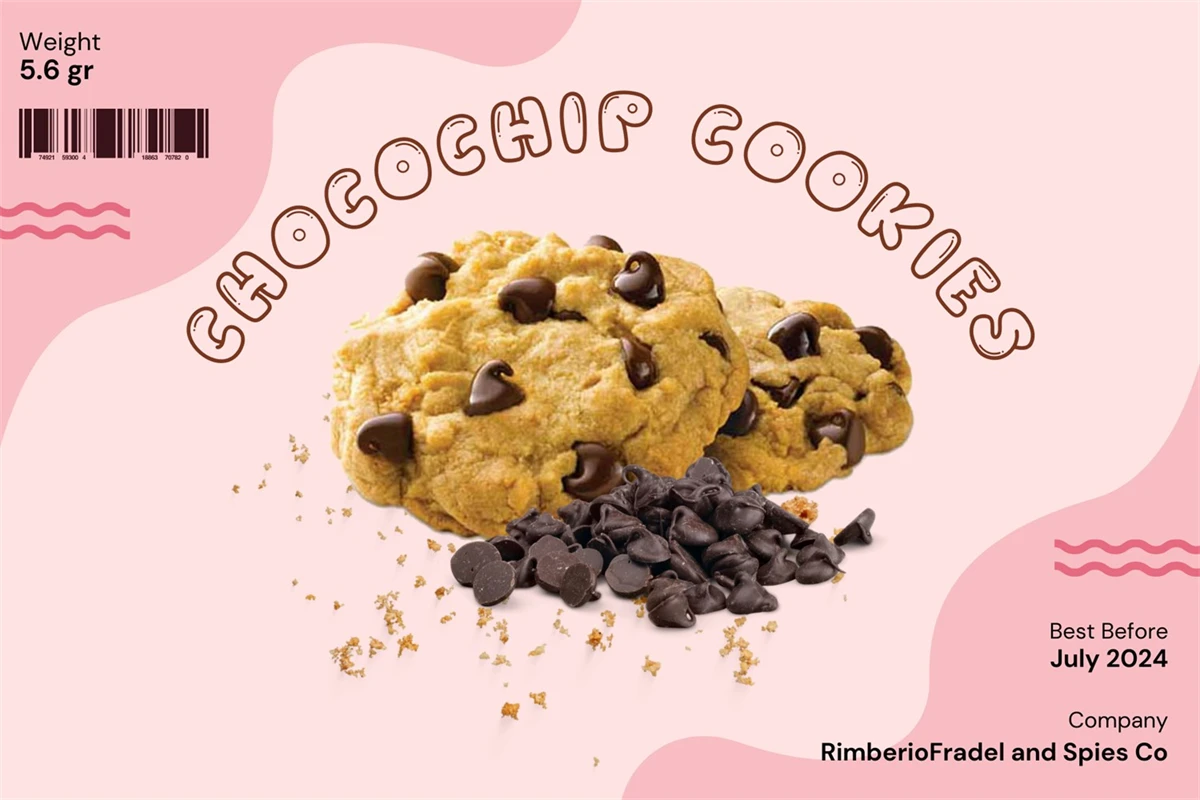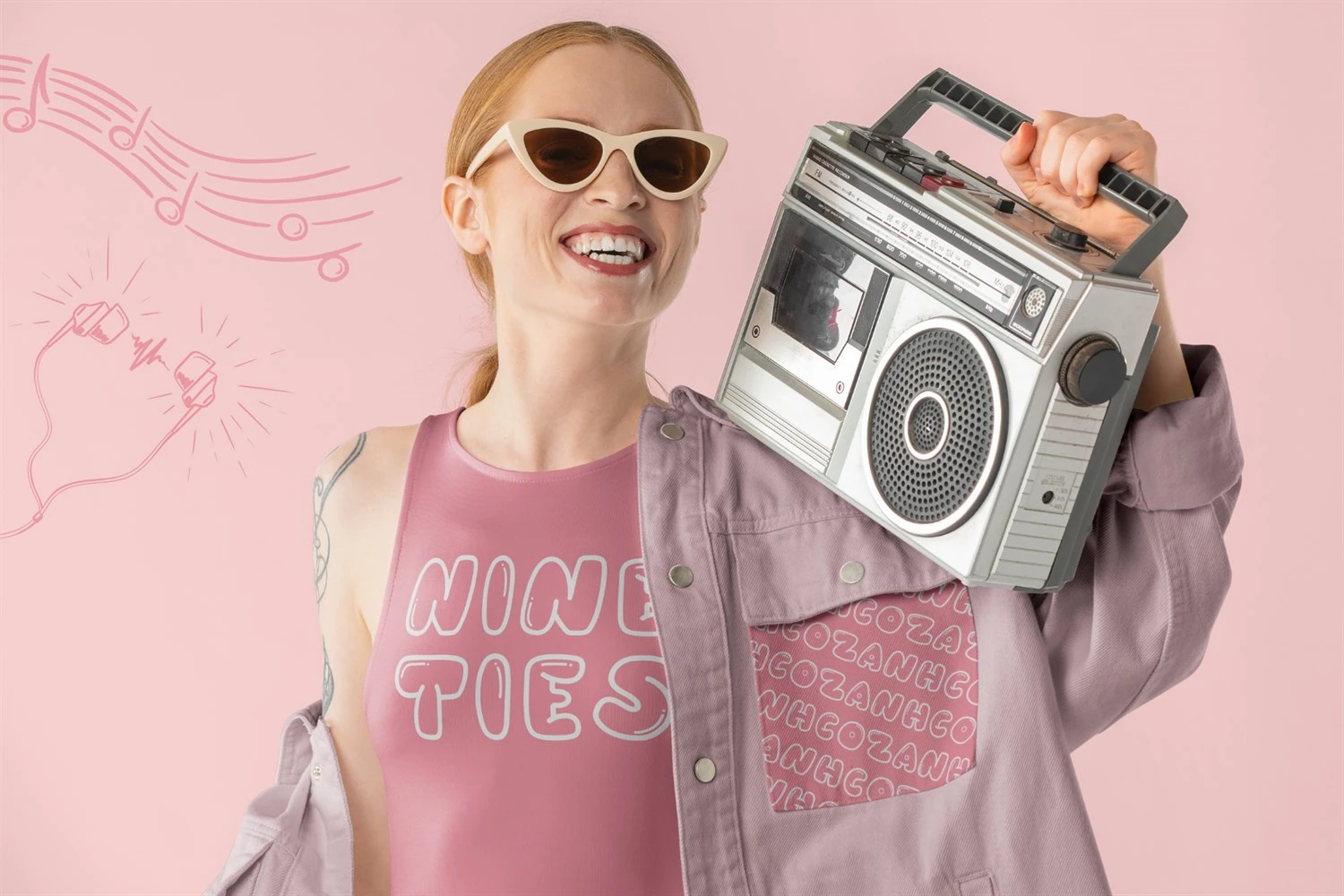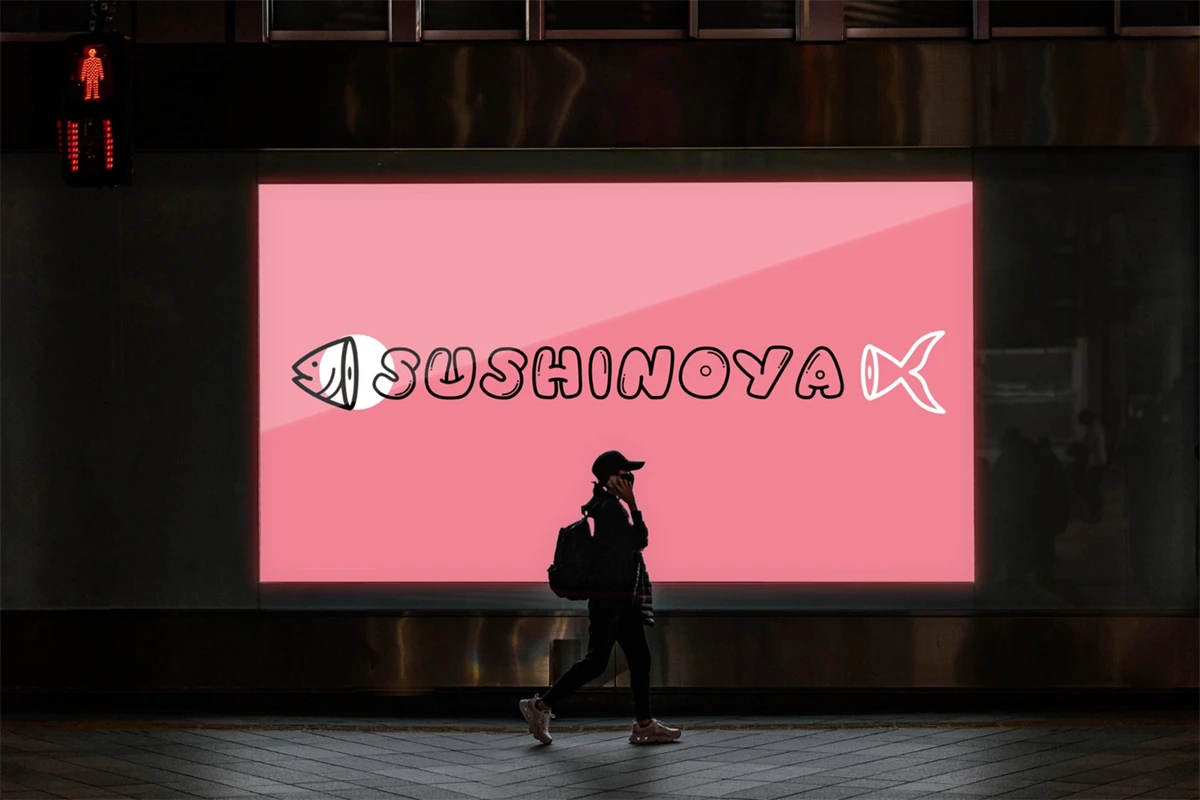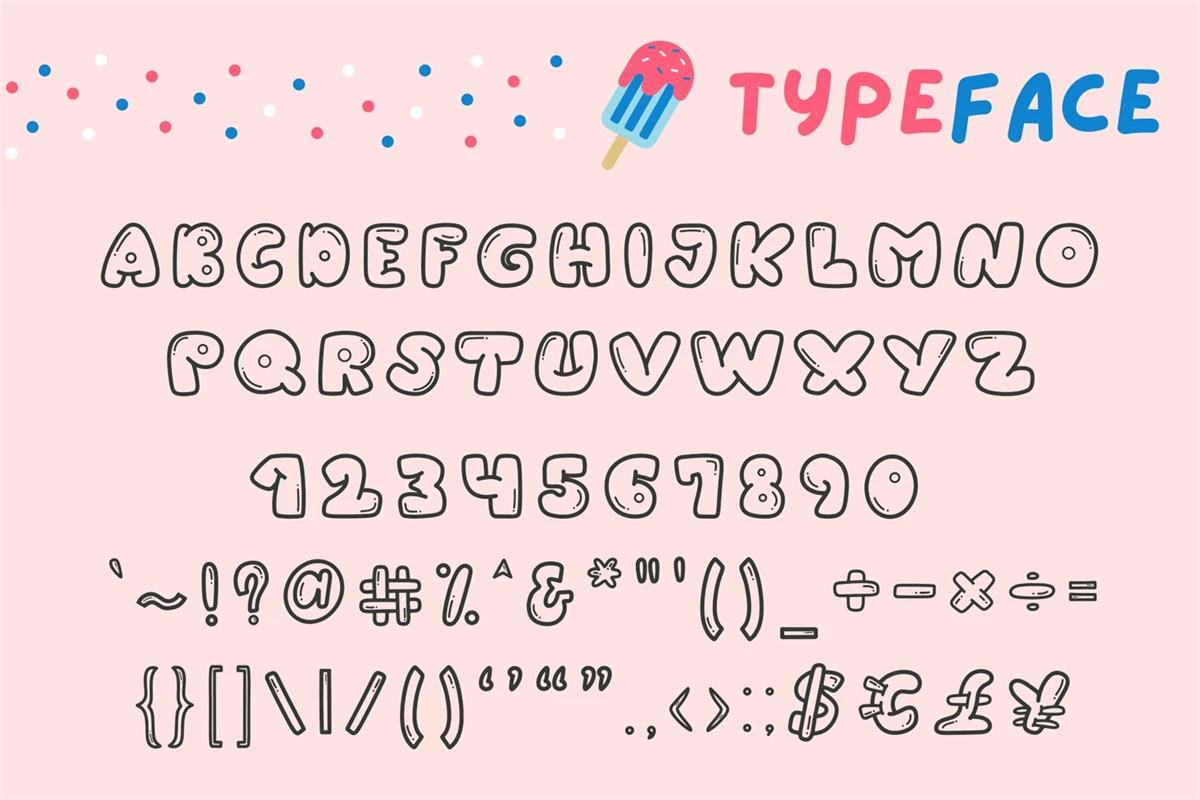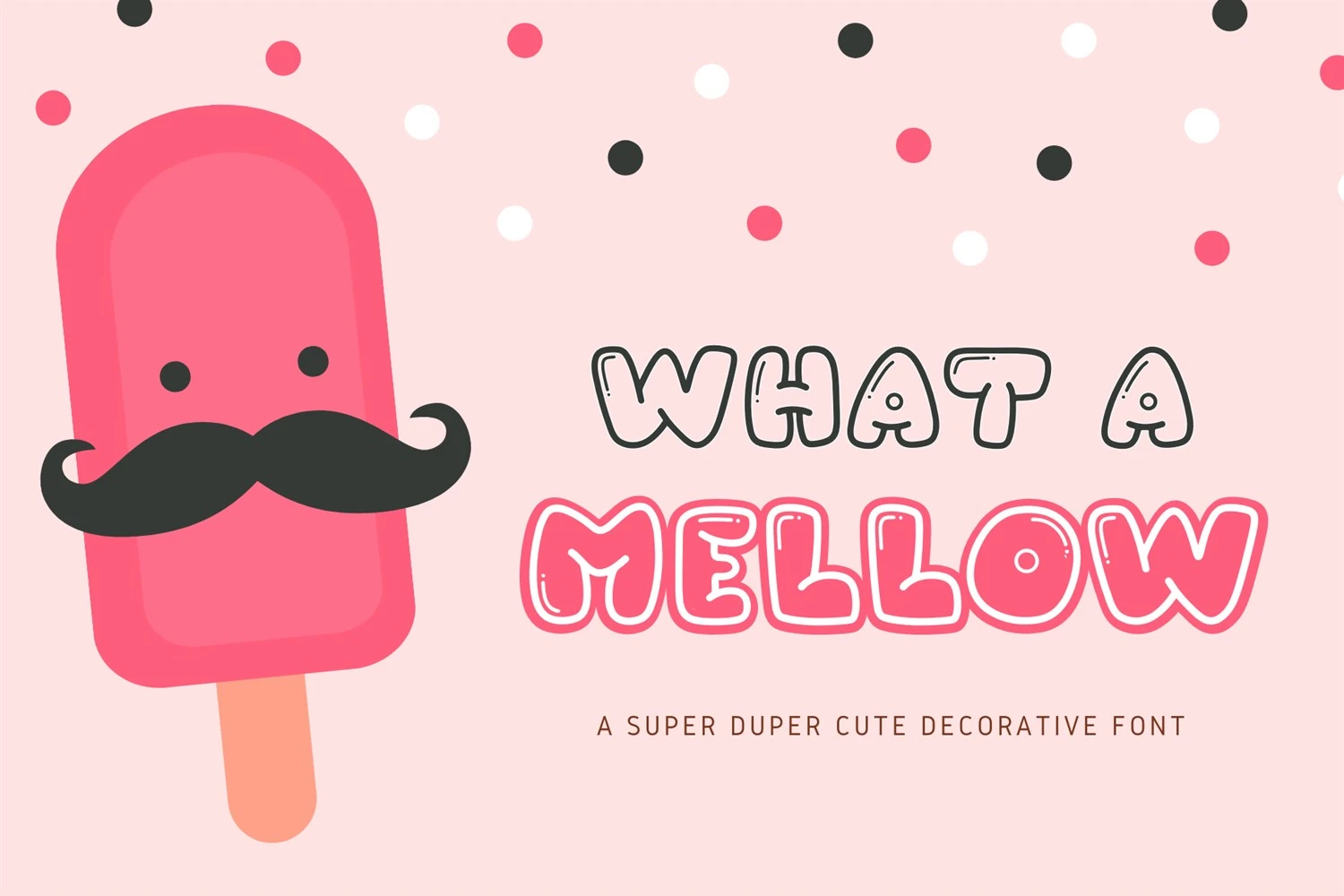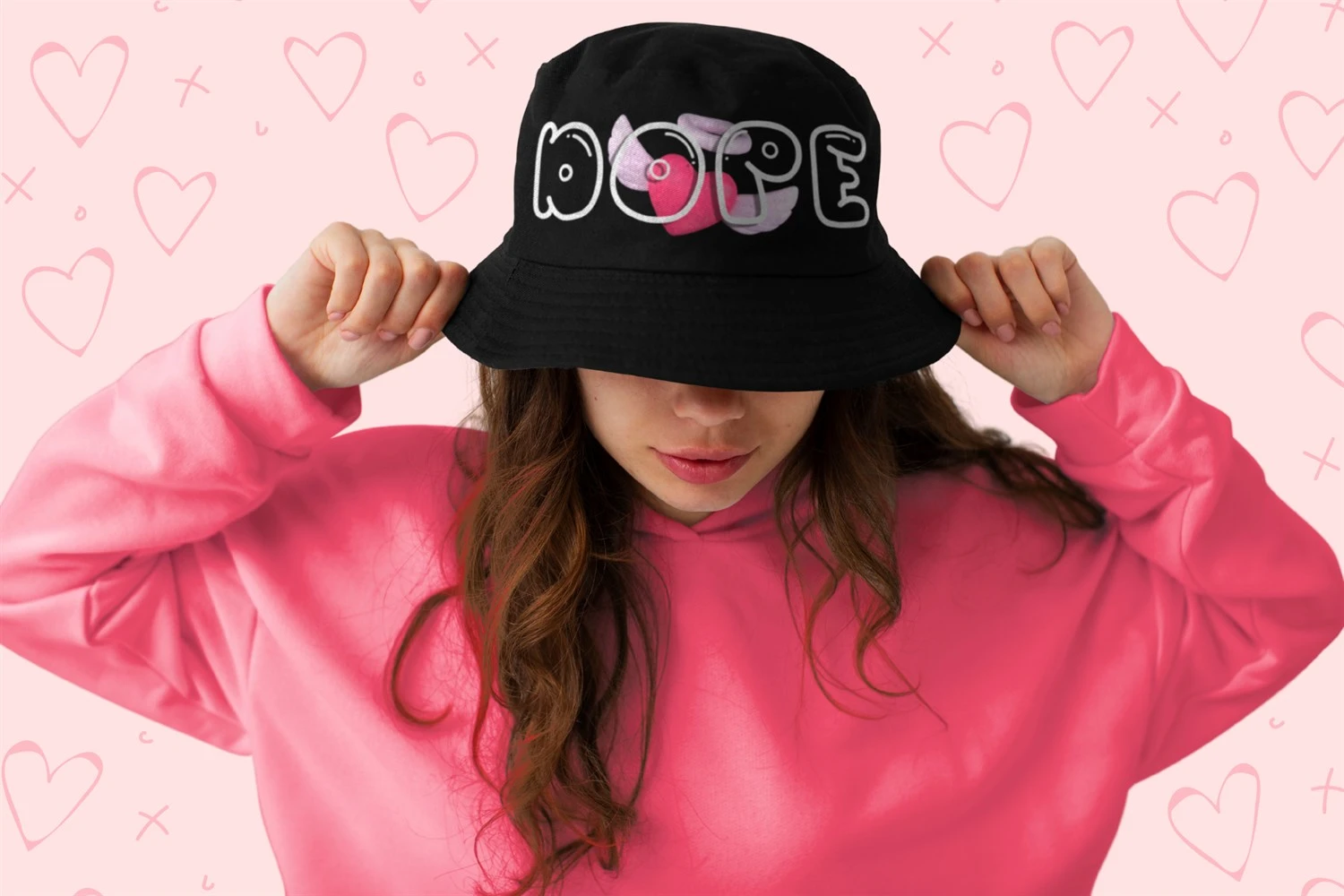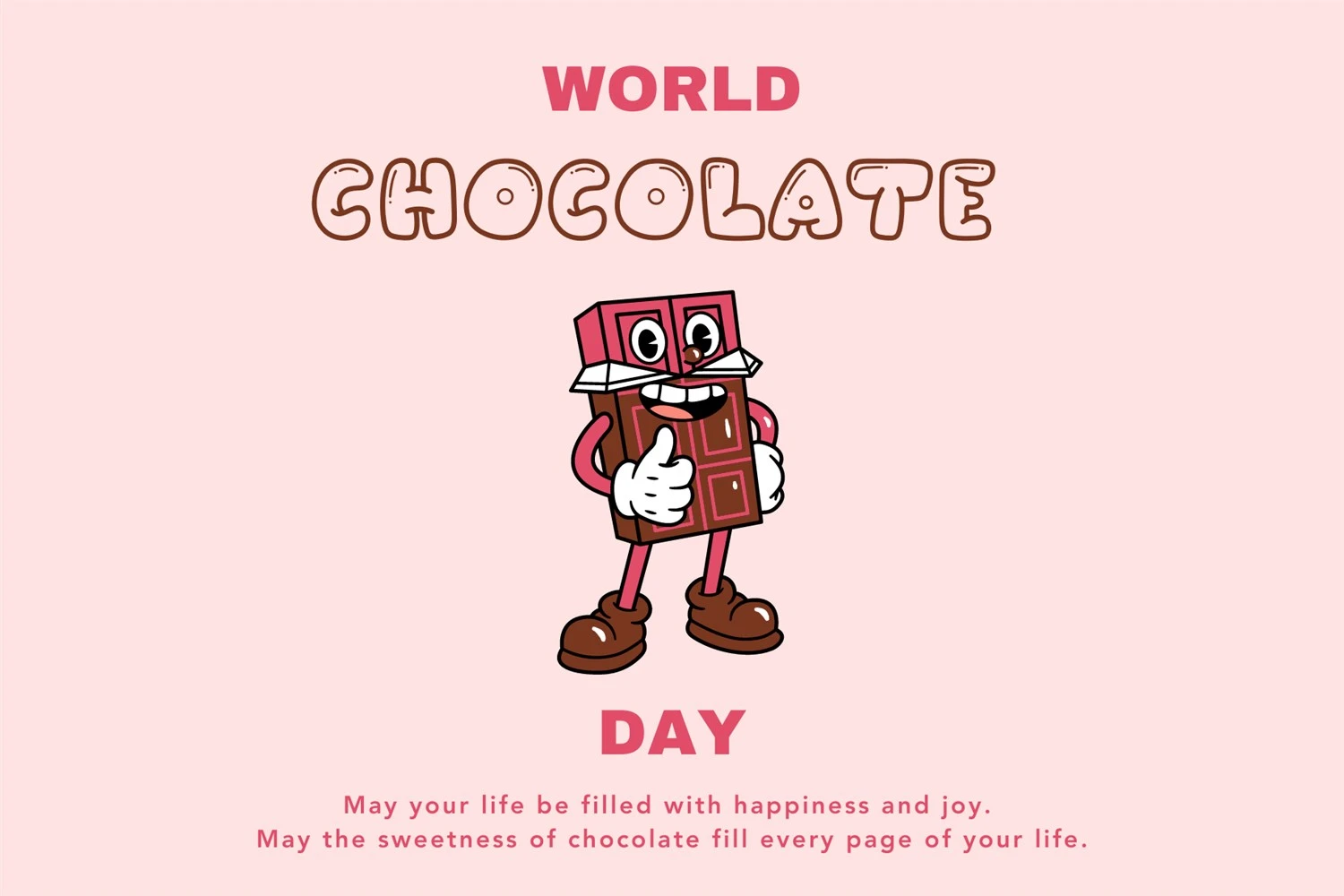
What a Mellow display font is a so attractive and energetic font with an eye-catching design. Whether youre working on product branding or content use, creating a display headline, or designing packaging for your latest project. What a Mellow font will surely bring an impressive smile to your piece of work effortlessly !